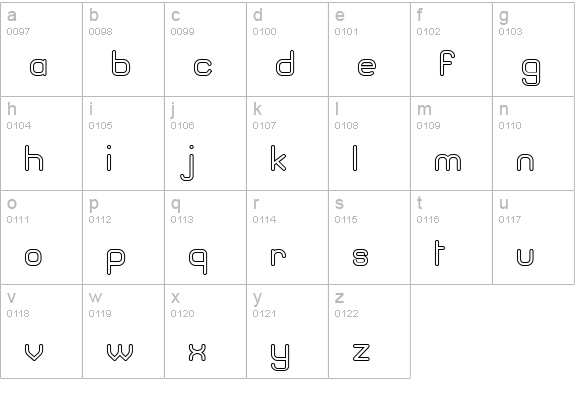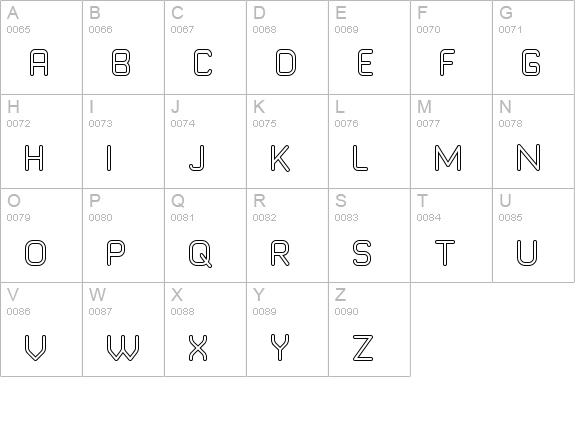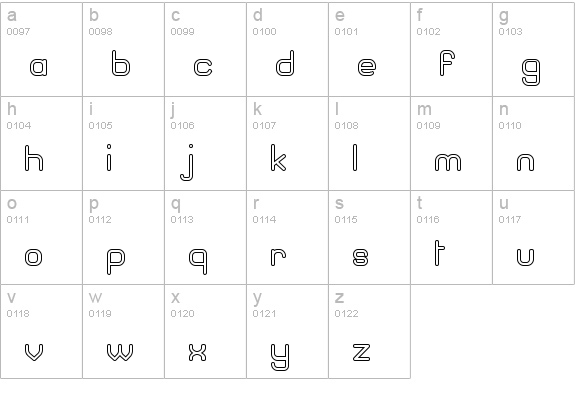
Brave New Era (outline) G98 Font Details
Brave New Era (outline) G98 font is a modern and stylish typeface designed to make a bold statement in your projects. With its sleek lines and futuristic appeal, this font is perfect for creating eye-catching headlines, titles, and logos. The outline design adds a unique touch that sets it apart from traditional fonts. Best of all, Brave New Era (outline) G98 font is available for free download at FontsMarket.com. This means you can easily add this versatile font to your collection without any cost. Whether you're a designer, student, or hobbyist, this font is sure to inspire your creativity and enhance your projects. Download Brave New Era (outline) G98 font today and take your designs to the next level!